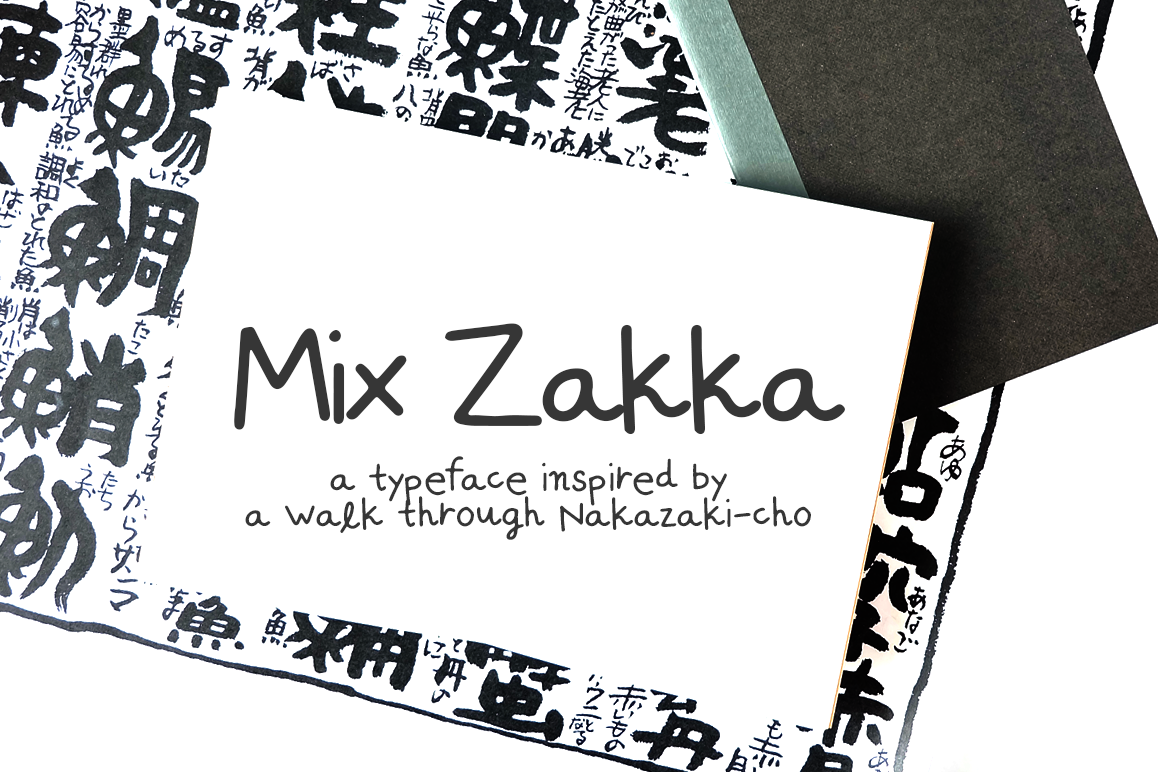
Zakka - a handwritten font inspired by Japan
MIX ZAKKA, a typeface inspired by a recent trip to Japan, and a walk through the Nakazaki-cho area in Osaka. This font is perfect for handmade and DIY themed projects.